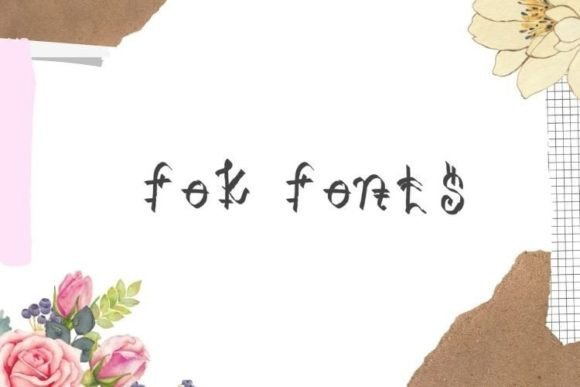
**Immerse Yourself in the Enchanting World of Fok Font: Where Creativity Blossoms**
Unleash your artistic vision with Fok Font, the exquisite decorative typeface that will cast a spell on your designs. Its captivating curves and delicate strokes evoke a sense of timeless elegance, inviting you on a journey where imagination knows no bounds.
**Create Unforgettable Quotes that Captivate Hearts**
With Fok Font as your muse, transform ordinary words into extraordinary expressions. Its enchanting characters lend an air of sophistication to any quote, making your messages resonate with a profound impact. Whether you seek to inspire, motivate, or simply share a moment of wit, Fok Font will amplify your voice, leaving an indelible mark on all who encounter it.
**Elevate Your Designs to New Heights of Distinction**
Let Fok Font be your guiding light as you embark on a creative odyssey. Its versatility knows no limits, effortlessly complementing a myriad of design styles. From whimsical invitations to captivating posters, Fok Font possesses an uncanny ability to elevate your creations, imbuing them with a touch of magic that will captivate every eye.
**Make Your Letters Dance with Unparalleled Style**
Say goodbye to mundane typography and embrace the transformative power of Fok Font. Each letter is a work of art, meticulously crafted to stand out from the crowd. Its graceful lines and alluring curves will infuse your designs with a captivating presence, ensuring that your creations leave a lasting impression on all who behold them.
**Experience the Beauty of Fok Font Today**
Join the growing legion of designers who have discovered the enchanting allure of Fok Font. Let its ethereal beauty inspire your next masterpiece, unlocking a world where creativity flows effortlessly and your designs reach new heights of excellence.